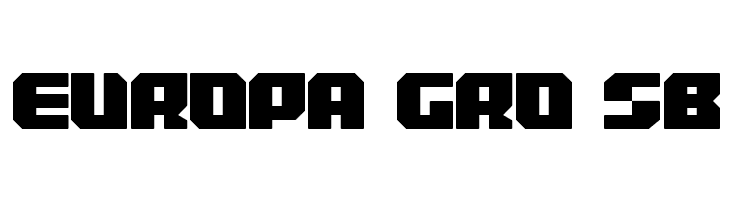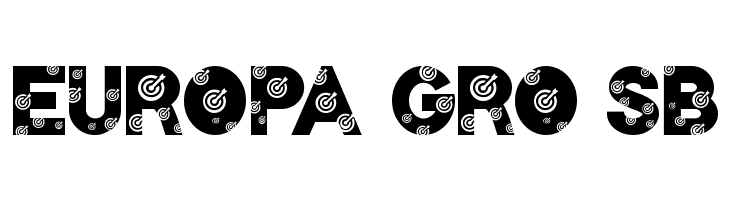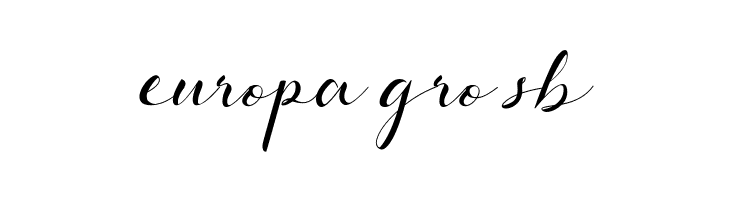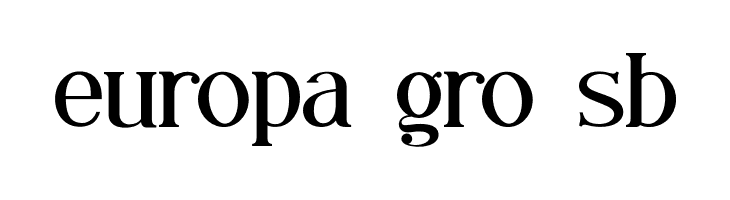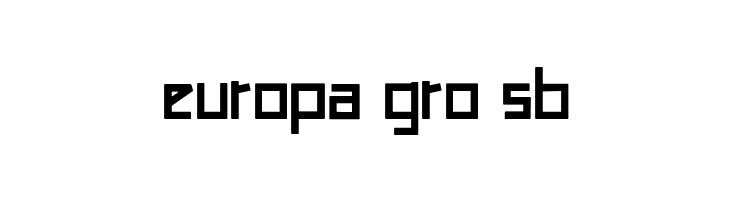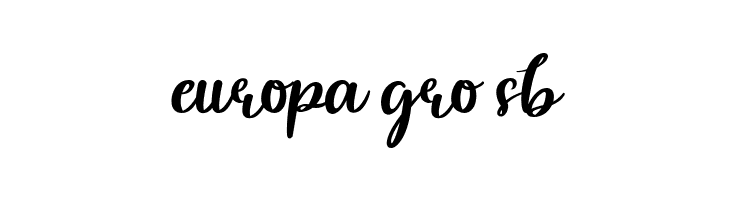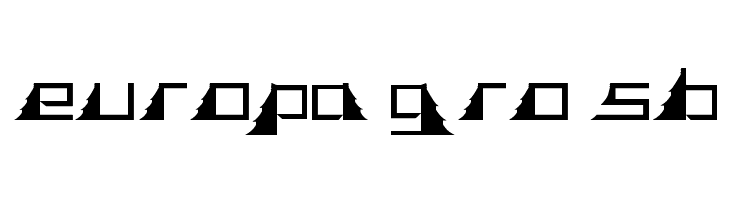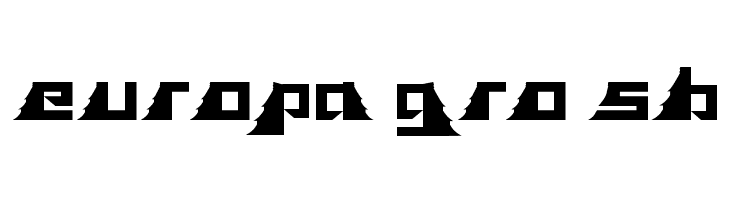
• Syailendra
A classic serif font with elegant strokes and refined serifs.
• Syaki
A dynamic and elegant script font with flowing, interconnected letterforms.
• SYFY Fantasy
• Tacketil
A bold slab serif font with strong, block-like serifs and uniform character design.
• Tadeliji
A geometric, angular font with a futuristic and bold design.
• Tag It Yourself
• Taniya Script
A graceful and fluid script font with elegant, connected strokes.
• Target
A bold, decorative font with embedded target symbols, perfect for creative projects.
• TASAGONI BOLD
A bold, angular font with sharp, jagged edges and a geometric style.
• TASAGONI REGULER
A geometric, angular font with a futuristic and bold design.